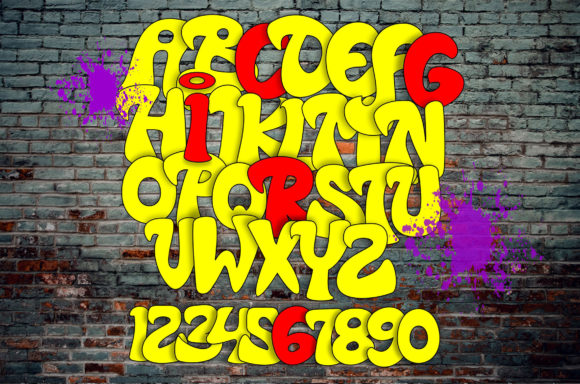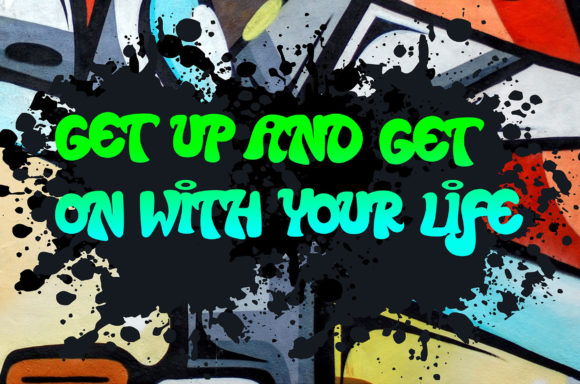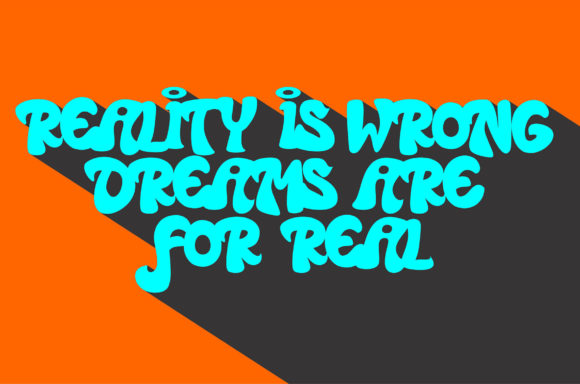
Unleash Your Creativity with Griffin Rase Font: The Ultimate Graffiti-Inspired Display Font
Are you tired of using the same old fonts for your crafting projects, apparel designs, and advertising materials? Look no further! Introducing Griffin Rase Font, a unique display font that adds a personalized touch to any design. With its graffiti-like appearance, this font is perfect for crafters, designers, and artists who want to take their work to the next level.
What is Griffin Rase Font?
Griffin Rase Font is a distinctive display font that boasts a graffiti-inspired aesthetic. Its bold, edgy, and artistic style makes it an ideal choice for designs that require a personalized and eye-catching look. Whether you’re working on a crafting project, apparel design, logotype, or advertising material, this font is sure to make your work stand out.
Key Features of Griffin Rase Font
- Unique Graffiti-Like Appearance: Griffin Rase Font features a one-of-a-kind graffiti-inspired design that adds a touch of personality to any project.
- Versatile: This font is perfect for a wide range of applications, including crafting projects, apparel designs, logotypes, advertising materials, wall decorations, and more.
- High-Quality: This font is designed with high-quality and clarity in mind, ensuring that it looks great even at large sizes.
Use Cases for Griffin Rase Font
Griffin Rase Font is an incredibly versatile font that can be used in a variety of contexts. Here are some ideas to get you started:
- Crafting Projects: Add a personalized touch to your crafting projects, such as handmade cards, scrapbooking, and DIY decorations.
- Apparel Design: Create eye-catching apparel designs, including t-shirts, hoodies, and hats, that are sure to turn heads.
- Logotype: Use Griffin Rase Font to create a unique and memorable logotype for your business or brand.
- Advertising: Make your advertising materials, such as flyers, posters, and brochures, stand out with this bold and attention-grabbing font.
- Wall Decoration: Create stunning wall decorations, including posters, prints, and murals, that showcase your personal style.
Benefits of Using Griffin Rase Font
So, why choose Griffin Rase Font for your next project? Here are just a few benefits of using this amazing font:
- Adds a Personalized Touch: Griffin Rase Font adds a unique and personalized touch to any design, making it perfect for crafters and designers who want to stand out.
- Increases Visibility: The bold and eye-catching design of this font ensures that your work will grab attention and stand out from the crowd.
- Enhances Creativity: With Griffin Rase Font, you can unleash your creativity and experiment with new and exciting design ideas.
In conclusion, Griffin Rase Font is a unique and versatile display font that is perfect for crafters, designers, and artists who want to add a personalized touch to their work. With its graffiti-like appearance, bold design, and ease of use, this font is sure to take your designs to the next level. So why wait? Download Griffin Rase Font today and start creating stunning designs that showcase your personality and style!
Whether you’re a seasoned designer or a crafty DIY enthusiast, Griffin Rase Font is an essential addition to your font collection. So, don’t miss out on this amazing opportunity to elevate your designs and make them truly unforgettable.